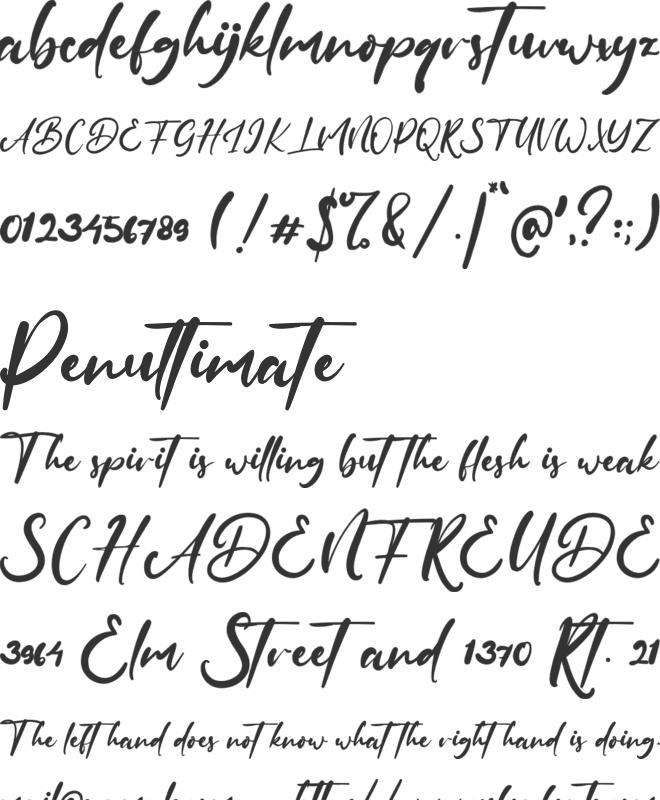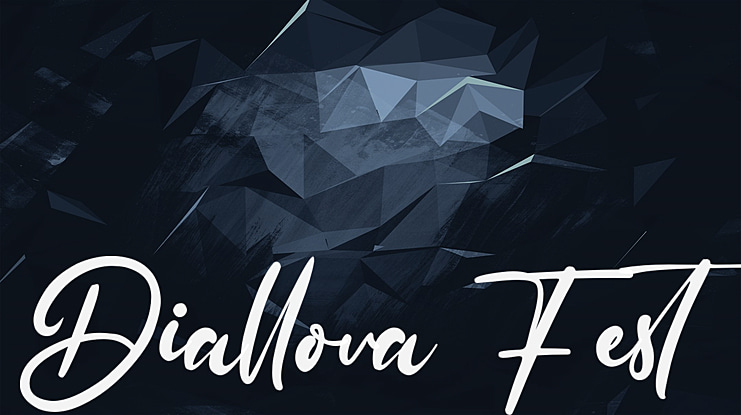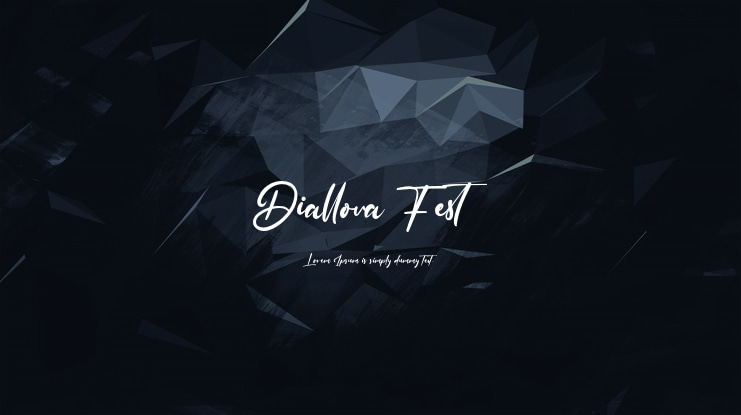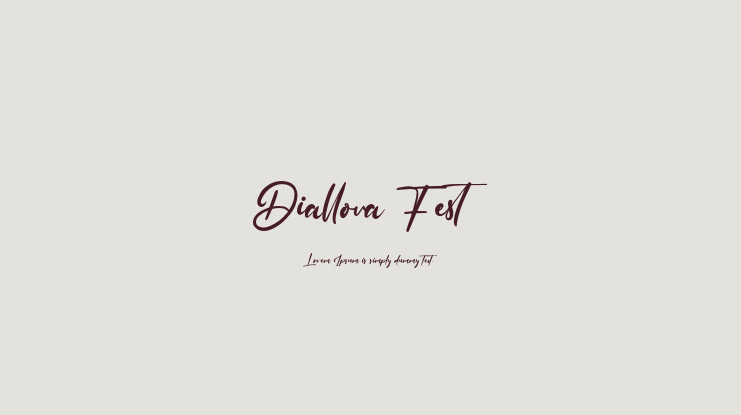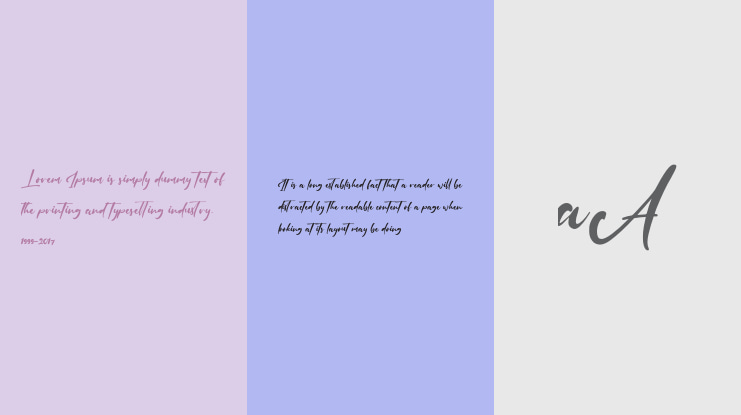
Diallova Fest Font
Diallova Fest Modern Script Typeface, A collection of letters and numbers suitable your projects also great for Logotype, Branding Design, Logo Design, Digital Lettering Arts, T-Shirt/Apparel, Poster, Magazine, Signs, Advertising Design, and any design needsClick our website : https://staircaselab.com/product/diallova-fest/